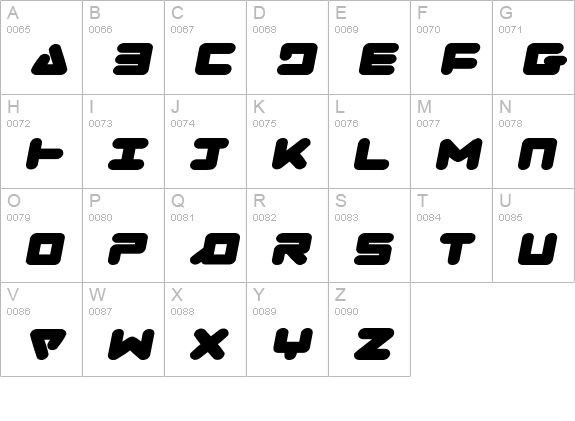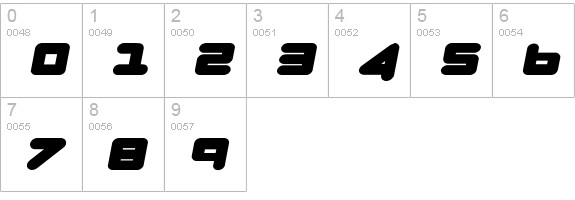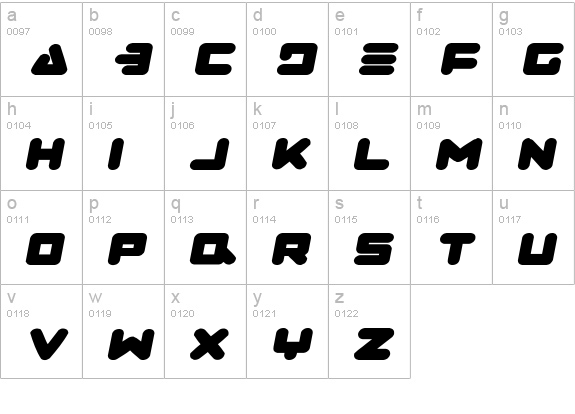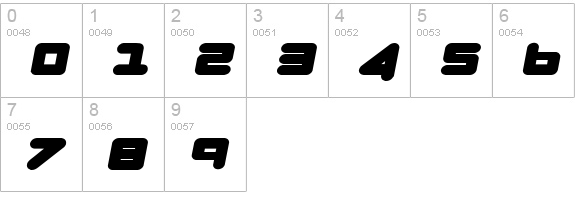
Zealot Expanded Italic Font Details
Zealot Expanded Italic is a distinctive, extended-width, italic variant in the Zealot typeface family \xE2\x80\x94 well suited to design and typography projects.
Zealot Expanded Italic font is a dynamic and eye-catching typeface designed for those seeking to make a bold statement. Its slanted, italicized design exudes a sense of energy and movement, making it perfect for adding flair to any project. The letterforms are sleek and modern, with elongated proportions that command attention. This font is ideal for headlines, titles, and other display purposes where you want to draw the eye and make an impact. The expanded width of the characters gives it a unique look that sets it apart from standard fonts. Whether used in print or digital media, Zealot Expanded Italic font will make your text stand out and leave a lasting impression on your audience. Best of all, Zealot Expanded Italic font is available for free download at FontsMarket.com. Now you can add this striking font to your collection without any cost, making it a valuable resource for designers, creatives, and anyone looking to elevate their projects with a touch of style and sophistication. Download Zealot Expanded Italic font today and unleash its power in your designs!